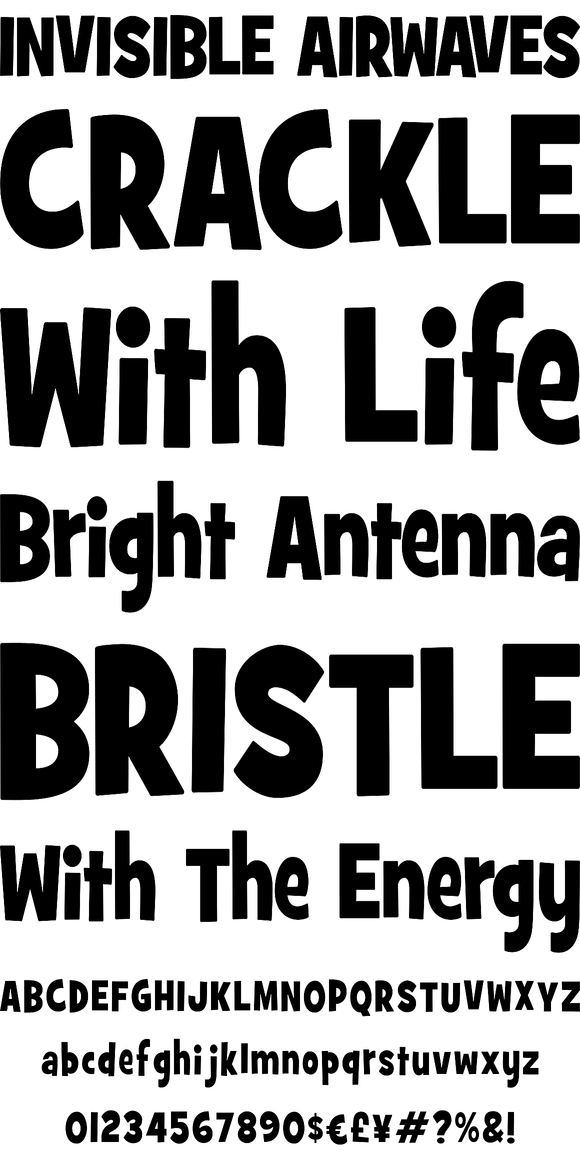
Grilled Cheese
Foundry: Breaking The Norm
Grilled Cheese was cooked up to be one of the most versitile display typefaces ever created! It makes a bold statement with it's strong easy to read look and keeps a playful personality.